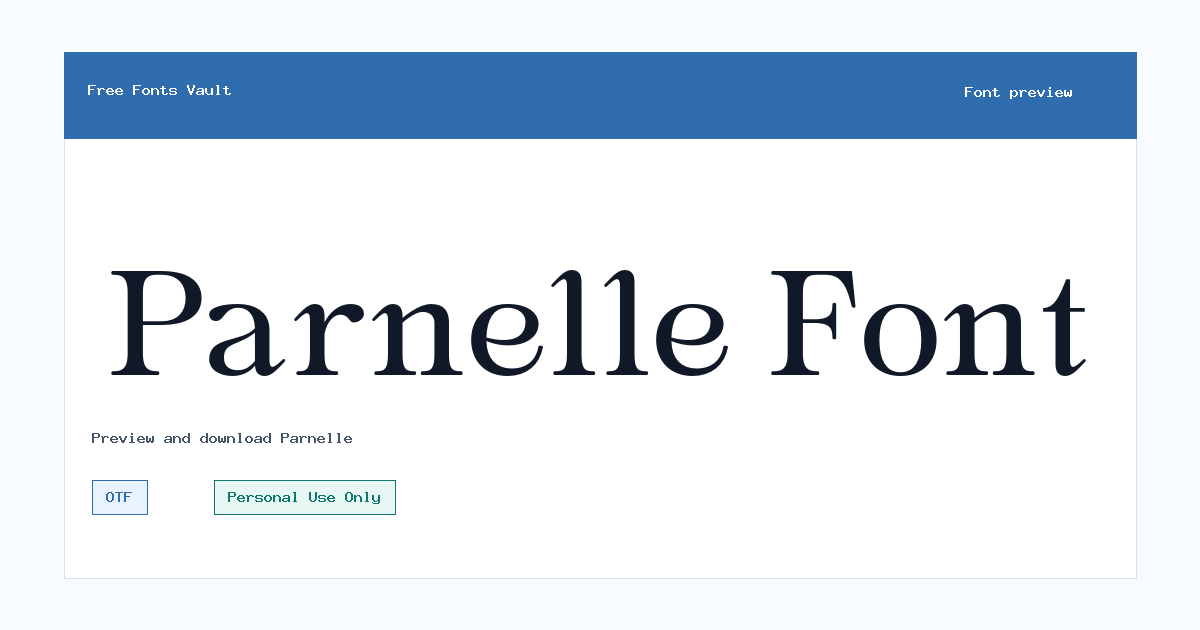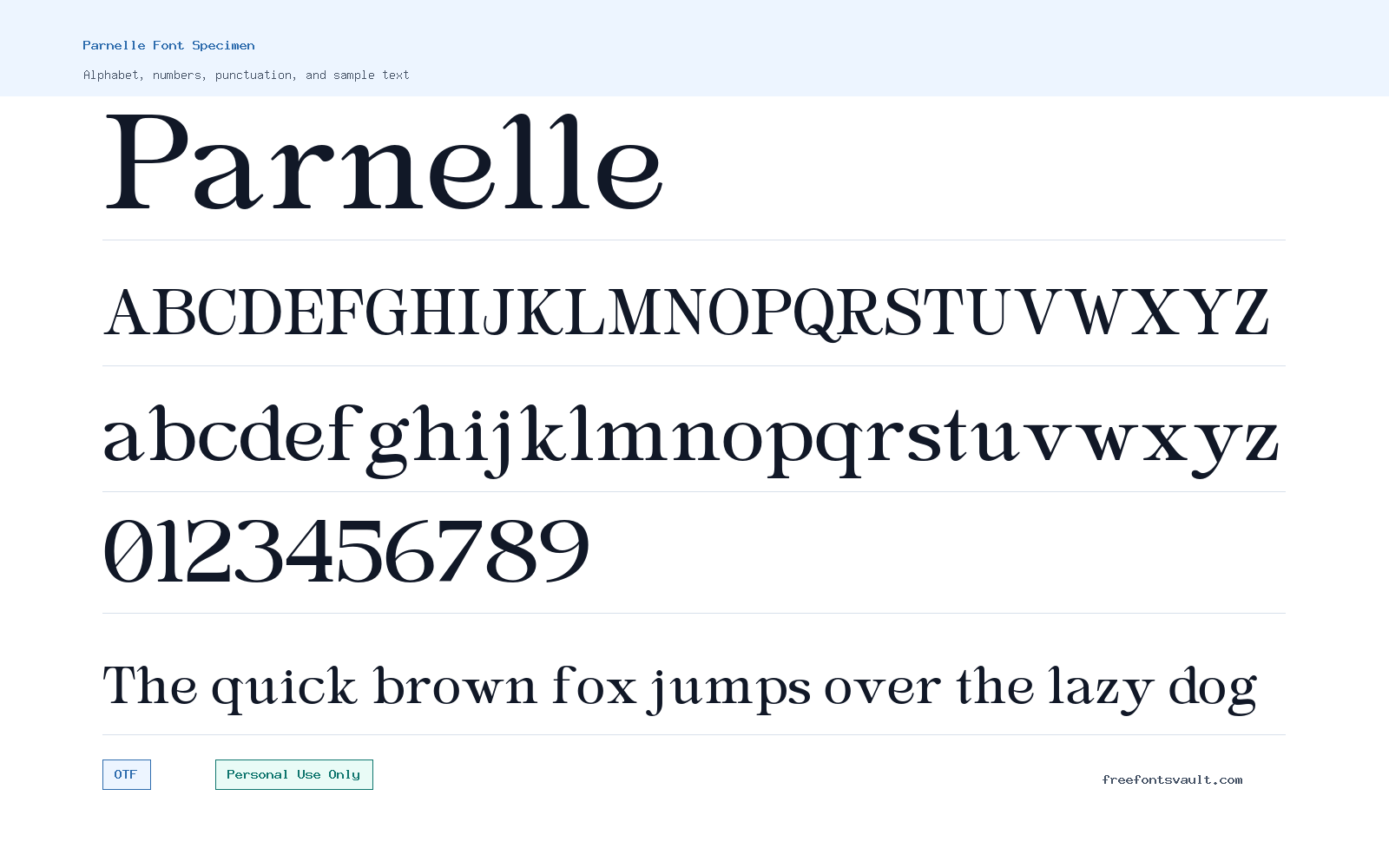
Parnelle
- Designer Fathi Al Ghazi
- Foundry Youthlabs Studio
Parnelle font.
Parnelle is a serif font with a regular OTF style, suited to designers who want a polished display look for personal projects, mockups, and short pieces of text.
About Parnelle Font
Parnelle works best when you give it space to show its serif character. Use it for headings, logo sketches, poster titles, invitation layouts, packaging concepts, social graphics, and editorial-style mockups where the type needs to feel more considered than a plain body font. Because only the regular style is listed, it is a better fit for focused display use than for a full brand system that needs several weights.
For a font like Parnelle, the preview box is the most useful place to start. Test your actual words rather than judging it from the name alone. Try a brand name, a two-line poster title, a short quote, and a few lowercase-heavy phrases. Look closely at spacing, punctuation, and letter combinations such as ‘Th’, ‘Wa’, ‘oo’, ‘ll’, and ‘rn’. Serif fonts can look very different at headline size than they do in small text, so check both large and medium sizes before downloading.
Parnelle can be useful for logo exploration, especially when the project needs a serif wordmark direction. Keep the first tests simple: one word, generous tracking, and a clean background. If the letter shapes feel too decorative for the brand at small sizes, consider using Parnelle only for the main mark or a display headline, then pair it with a neutral sans serif for supporting copy. That contrast usually keeps layouts readable while letting the serif font carry the personality.
For posters and web mockups, use Parnelle where readers do not need to scan long paragraphs. It can sit nicely in a hero heading, a section title, a magazine-style pull quote, or a promotional graphic. Avoid setting dense body copy in it until you have tested readability on desktop and mobile screens. If your layout includes menus, captions, product details, or long descriptions, pair Parnelle with a simpler text font that handles small sizes more comfortably.
- Regular serif style for display typography, headings, logo drafts, and short text settings
- Single listed weight, making it simple to test but less flexible than a multi-weight family
- Useful for personal design concepts, posters, invitations, social graphics, and editorial-style layouts
- Best evaluated with real project text, especially names, headlines, and short phrases
- Logo concepts and wordmark experiments for personal projects
- Poster titles, event graphics, and large headline layouts
- Editorial-style mockups, cover designs, and quote graphics
- Invitation drafts, stationery concepts, and decorative personal designs
- Web and app mockups where a serif display heading is needed
It is better to test it first. With only a regular style listed, Parnelle is most practical for headings, titles, and short text. For long paragraphs, pair it with a font designed for comfortable reading.
Try a neutral sans serif for menus, captions, and body copy. This lets Parnelle stand out in headings while keeping the rest of the design easy to read.